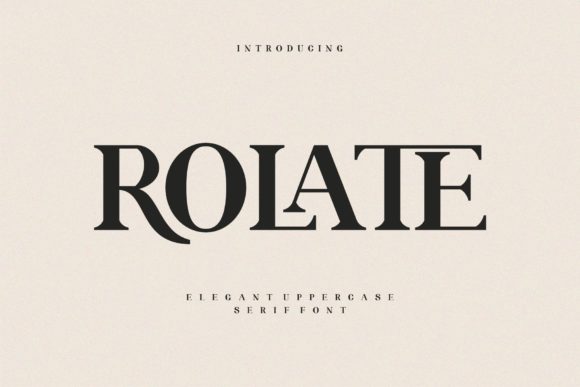
Prepare to be Mesmerized: Introducing Rolate, the Exquisite Serif Font That Will Transform Your Designs
Introducing Rolate, an exceptional serif font that exudes sophistication and beauty, designed to add a touch of elegance to all your creative endeavors. Crafted with meticulous attention to detail, Rolate captivates with its bold strokes and delicate curves, creating a visual masterpiece that will elevate your designs beyond imagination.
Step into a world of elegance and charm, where Rolate takes center stage, transforming your words into art. With its strong personality and undeniable charisma, Rolate instantly adds a touch of sophistication to any project, be it a captivating novel, a heartfelt letter, or an alluring advertisement. Experience the joy of seamless readability as Rolate's smooth lines guide your eyes effortlessly across the screen or page, enhancing the impact of your words.
Immerse yourself in a realm of creative possibilities with Rolate, a font that empowers you to express your individuality like never before. Whether you're a writer, designer, or simply someone who appreciates the beauty of typography, Rolate has the power to ignite your imagination and bring your visions to life. Its timeless appeal transcends trends, making it the perfect choice for projects that demand both style and substance.
Unlock the boundless potential of Rolate and embrace the transformative power of beautiful typography. Let your words dance across the screen or page, adorned with the grace and elegance of Rolate. Elevate your designs to new heights, captivate your audience, and leave a lasting impression that will be cherished for years to come.
Unleash the Beauty Within: Embrace Rolate, the Serif Font That Speaks to the Heart